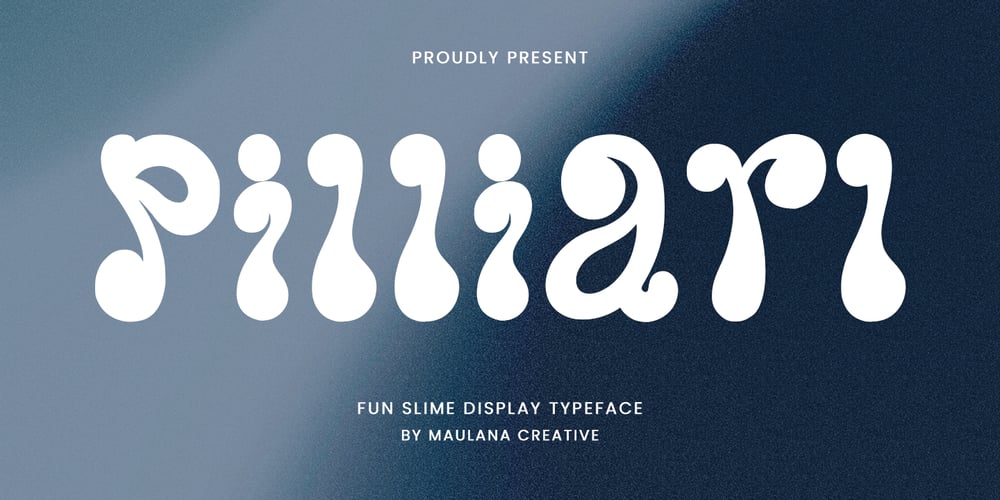
MC Pilliarl
MC Pilliarl font
MC Pilliarl Font Family was designed by Gilang Maulana and published by Maulana Creative. MC Pilliarl contains 1 styles and family package options. Pilliarl fun slime display font. With sharp bold stroke, fun character with a bit of ligatures and alternates. To give you an extra creative work. Pilliarl fun slime display font support multilingual more than 100+ language. This font is good for logo design, Social media, Movie Titles, Books Titles, a short text even a long text letter and good for your secondary text font with script or serif. Make a stunning work with Pilliarl fun slime display font.Cheers,Maulana Creative